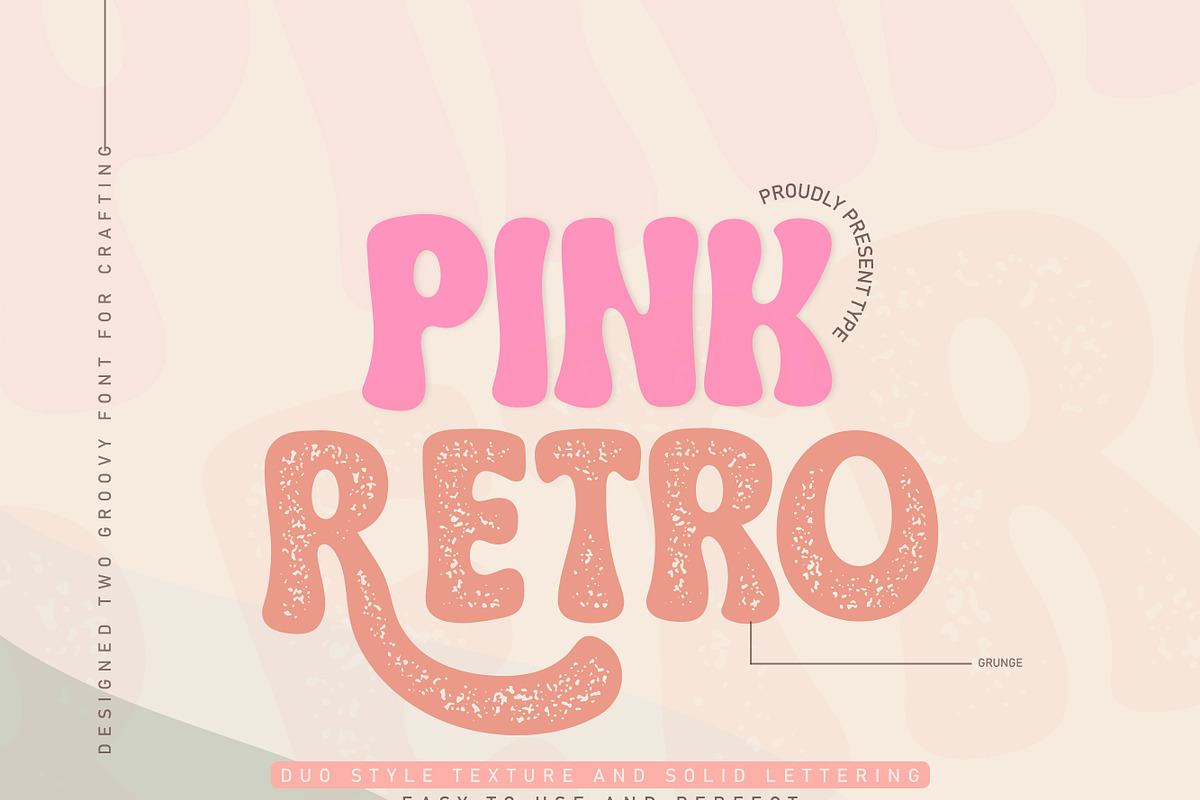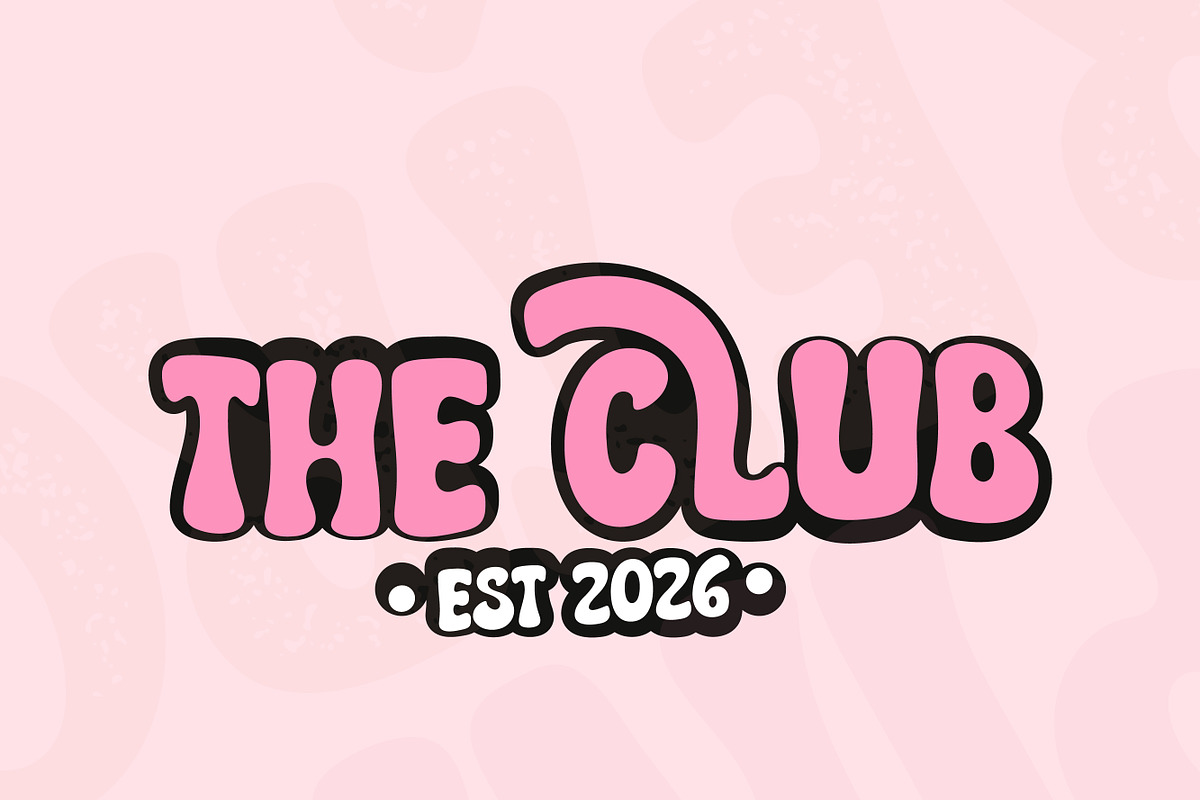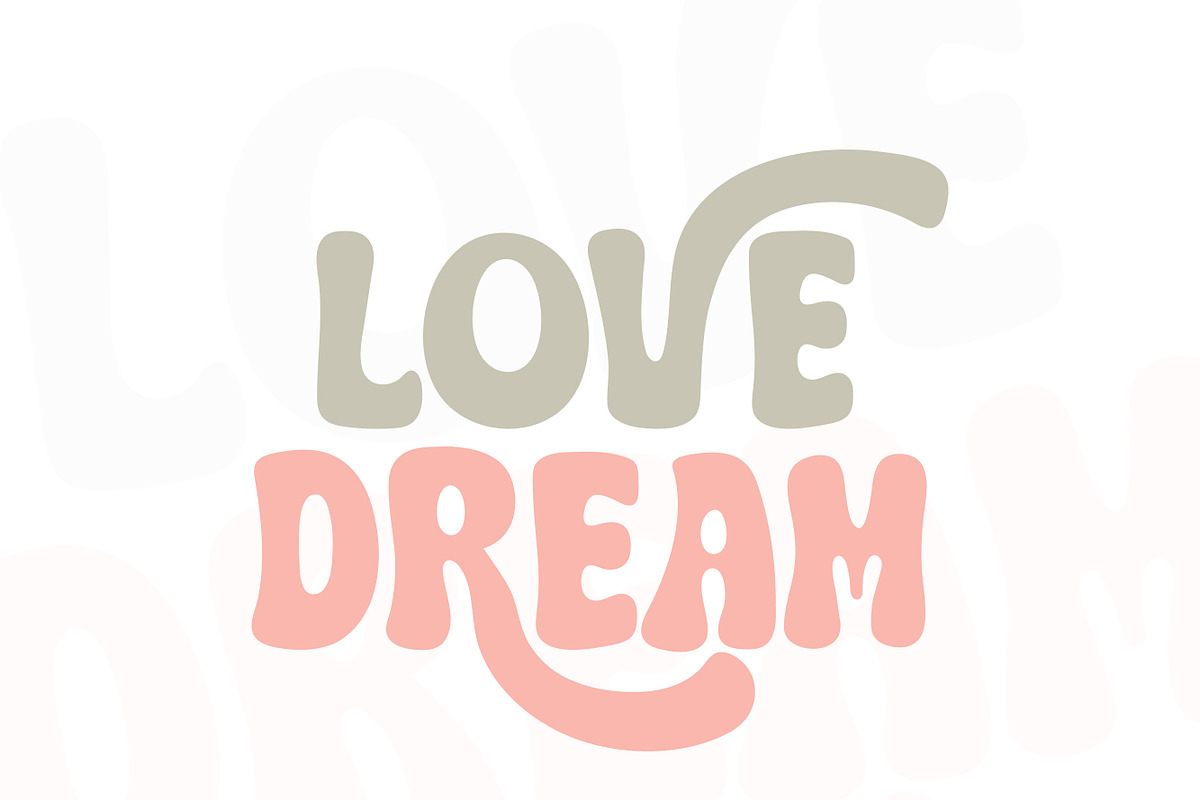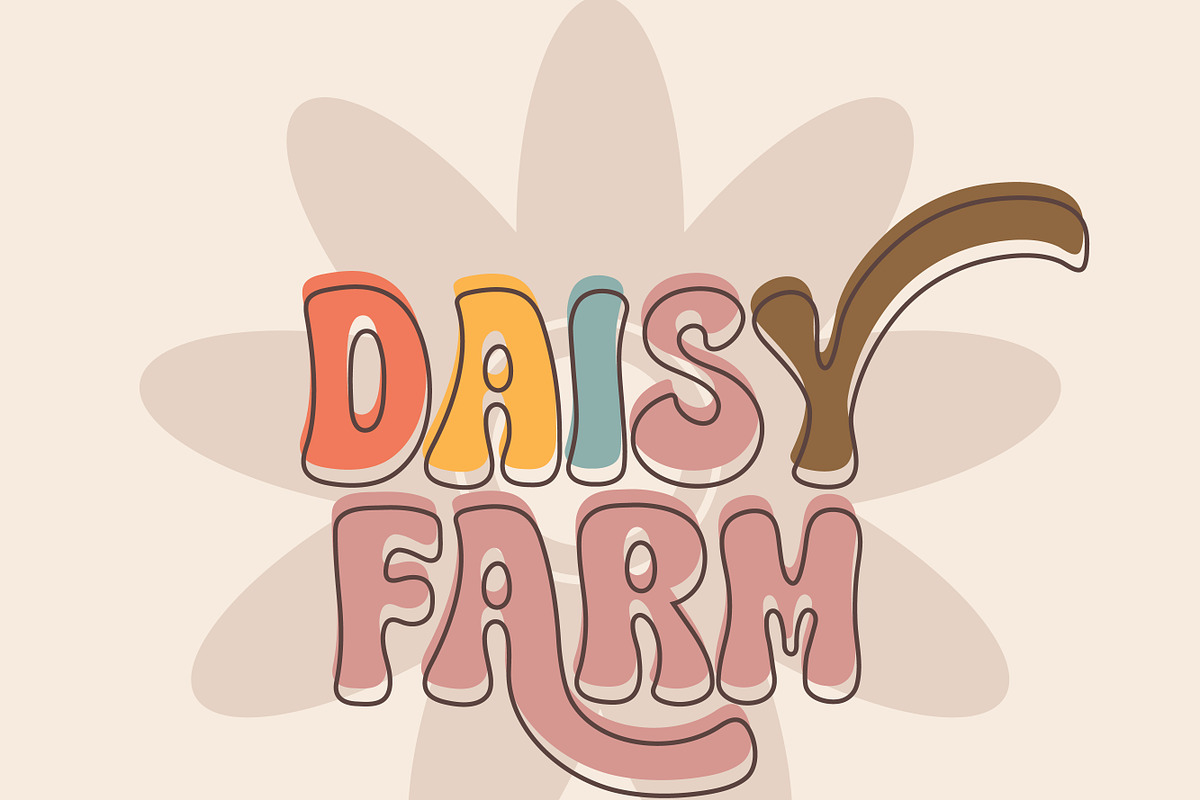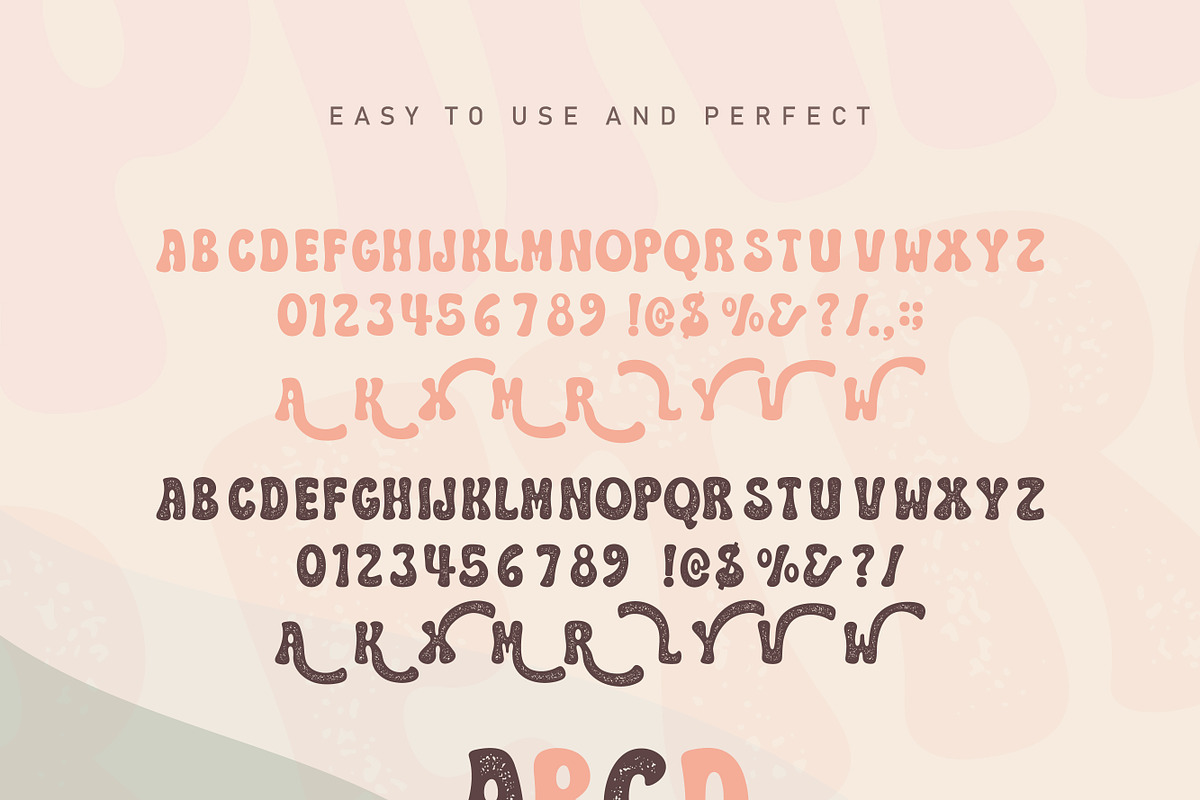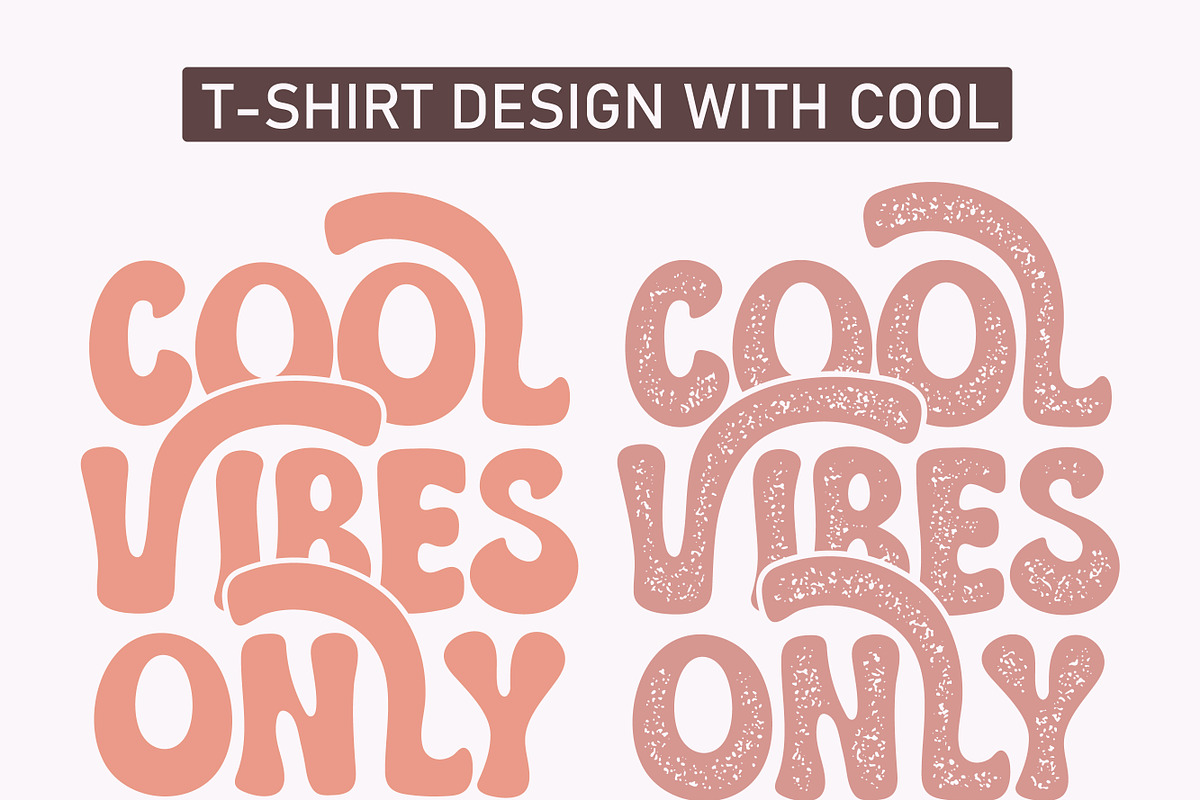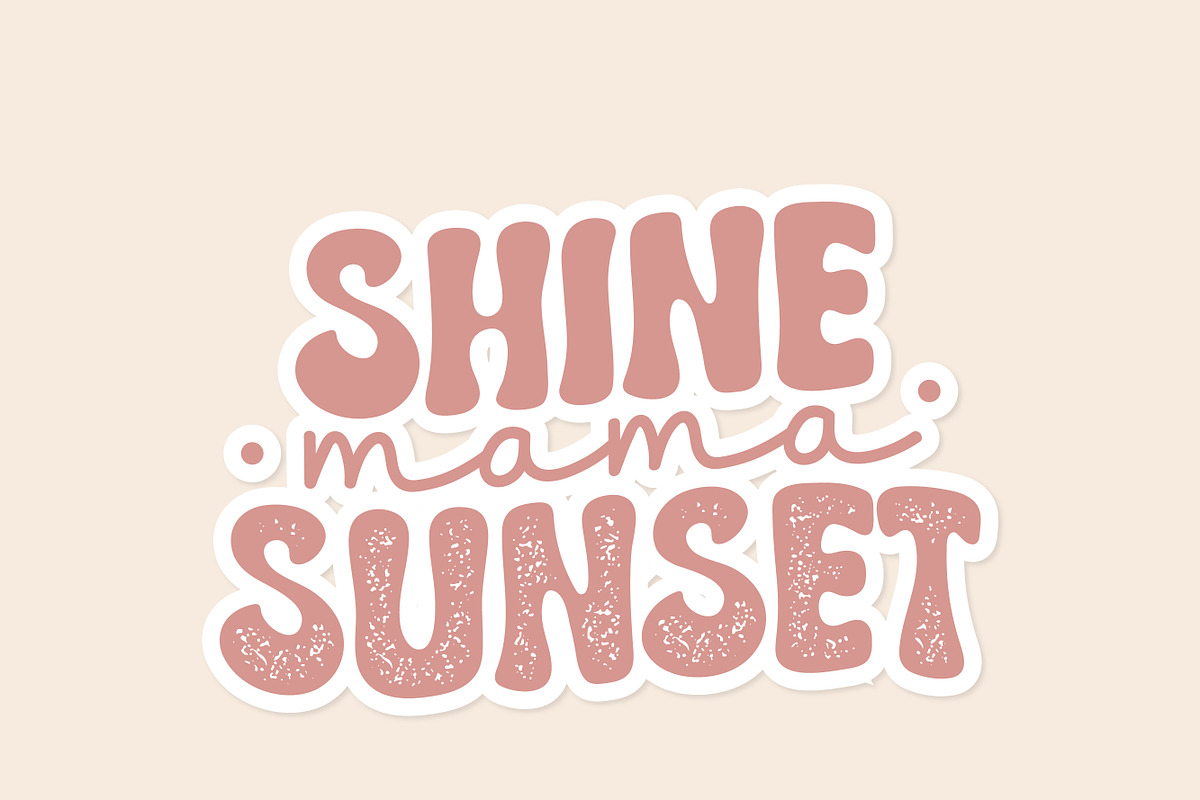
Pink Retro
Pink Retro is a fun and cute groovy font (Display soft and texture lettering). This font is perfect for children themed, custom designs, DIY crafts, or just any creation that requires a lovely touch, this font will be an amazing choice.